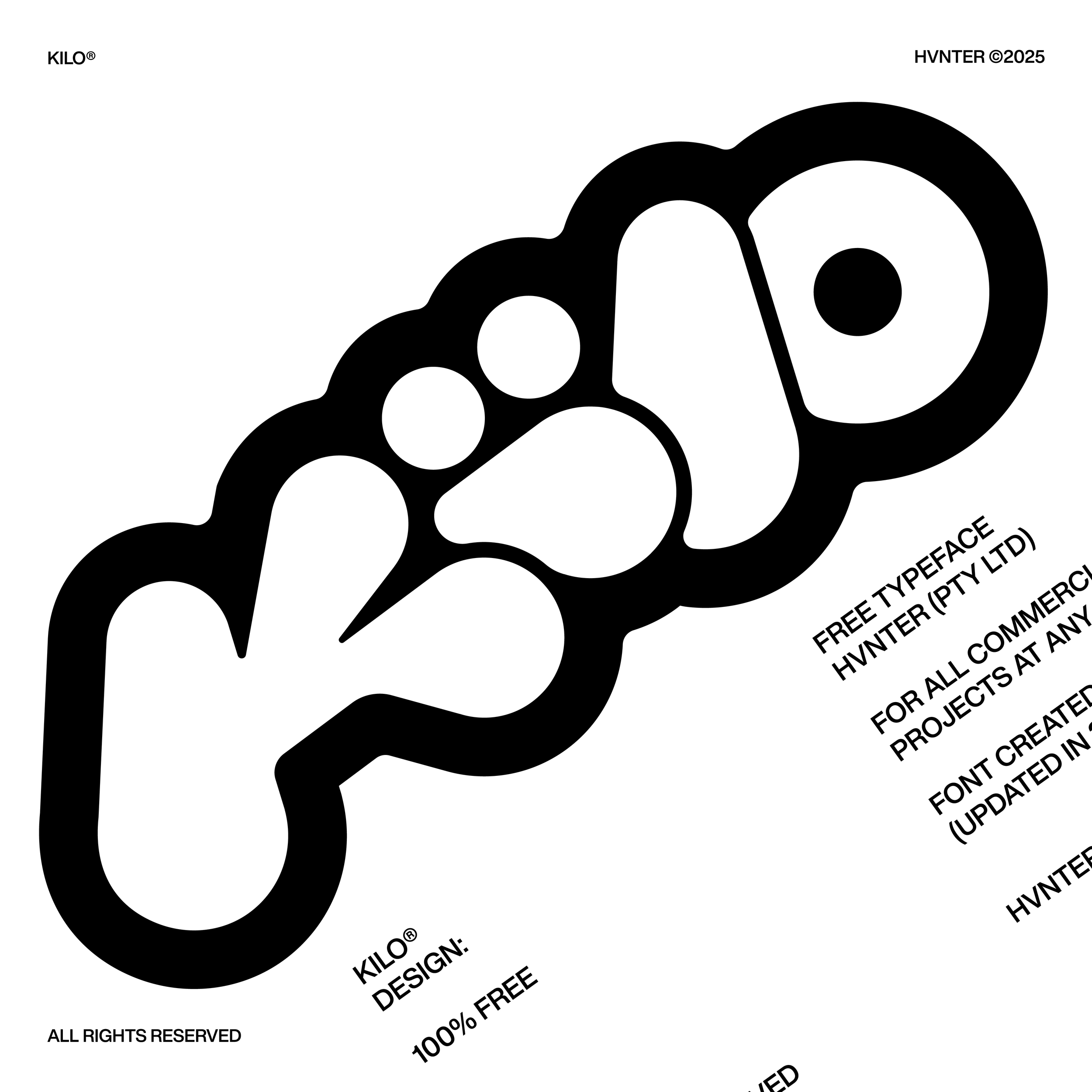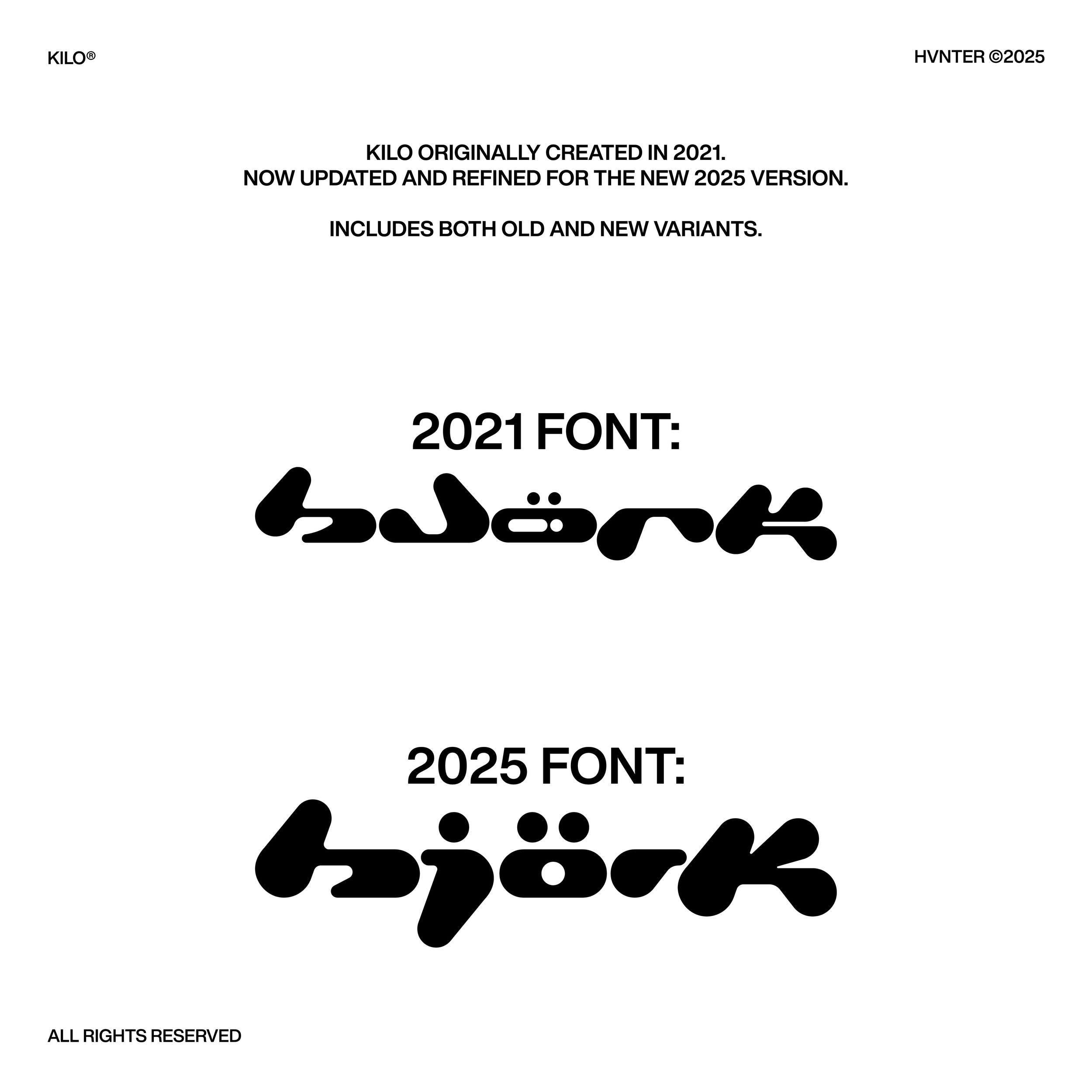
ALL PRODUCTS › Kilo Typeface $0.00 Y2k inspired Typeface – 100% Free COMMERCIAL use!Includes the original 2021 font, and an updated 2025 version. Y2k inspired Typeface – 100% Free COMMERCIAL use!Includes the original 2021 font, and an updated 2025 version. Download Added! Reviews Reviewer Name Review Date Star Rating Description Posted on Etsy Product Show More You Might Also Like Nerf Typeface $15.00 BORG Typeface $20.00 Moslin Typeface $15.00 Ombrey® Typeface $20.00 Display Type Kit (Vol.01) $20.00